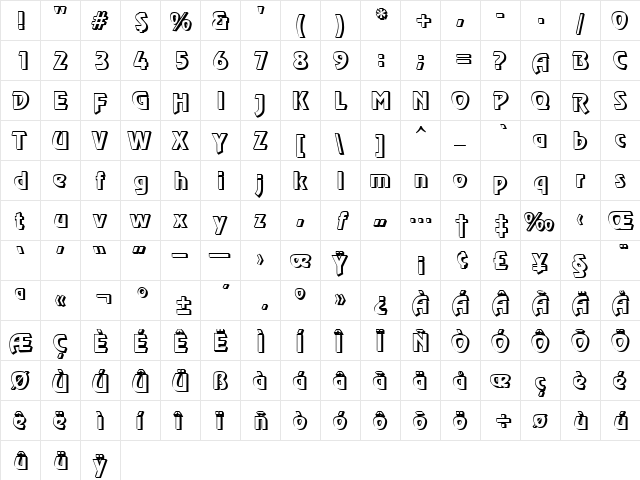
Gstaad Regular
Design Context for Gstaad Typeface
Gstaad is a composed and adaptable typeface that performs quietly and consistently across a wide range of design contexts.